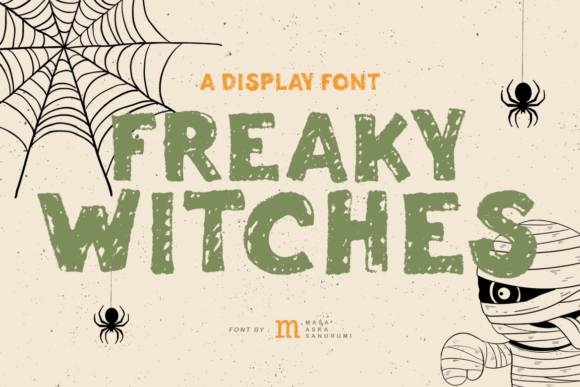
Unleashing Your Inner Witch
Have you ever stared at a blank canvas, feeling like your design just wasn’t quite… wicked enough? I know I have. There’s something about a truly unique font that can elevate an entire project from meh to mesmerizing. And that’s exactly where Freaky Witches Font comes in – the perfect potion to add a dash of magic to your next design.
This display font is a masterclass in spooky charm, with its bold lines and eerie flair sure to leave a lasting impression. Whether you’re crafting a haunted house brochure or a witchy-themed website, Freaky Witches Font is the perfect tool to make your design stand out from the crowd. And for designers, that’s priceless.
Freaky Witches Font Key Features
- Unique Characteristics: The font features a playful, whimsical design with intricate details and ornaments, making it perfect for Halloween-themed designs, fantasy art, and children’s books.
- Character Set: The font includes a wide range of characters, including uppercase and lowercase letters, numbers, punctuation marks, and special characters, as well as a variety of ornaments and decorations.
- Font Style: The font has a distressed, hand-drawn feel, with bold lines and subtle texture, giving it a unique and eye-catching appearance.
Freaky Witches Font Review
I recently had the chance to work with the Freaky Witches Font and here’s my honest take on it. Overall, I think it’s a unique and quirky addition to any design project.
- Unconventional charm**: The font’s eclectic mix of gothic and whimsical elements makes it perfect for adding a touch of magic to your designs.
- High-quality rendering**: The font is well-designed and easy to read, even at smaller sizes.
- Flexibility**: It’s available in various weights and styles, allowing you to tailor it to your specific design needs.
- Limited legibility**: The font’s intricate details can make it difficult to read at very small sizes or in certain contexts.
- Lack of versatility**: While it’s great for fantasy and horror themes, it might not be the best choice for more straightforward or professional designs.
Overall, I think the Freaky Witches Font is a solid choice for designers looking to add a touch of whimsy and personality to their work. Just be mindful of its limitations and use it in contexts where its unique charm will shine through.
Compared to Freaky Witches Font, Creamer Script has a more contemporary look and feel, making it suitable for modern designs, such as branding, packaging, and advertising. While Freaky Witches Font is more nostalgic and spooky, Creamer Script is more modern and trendy.